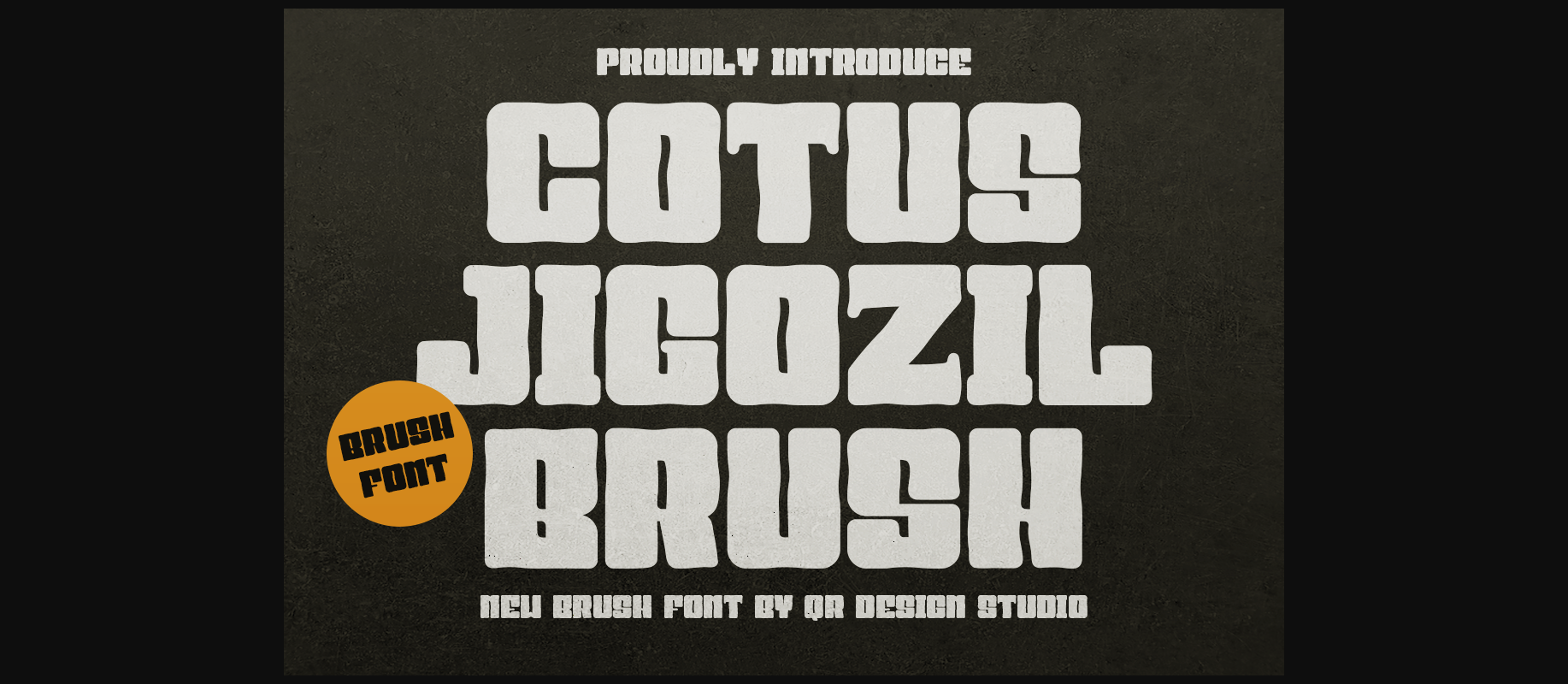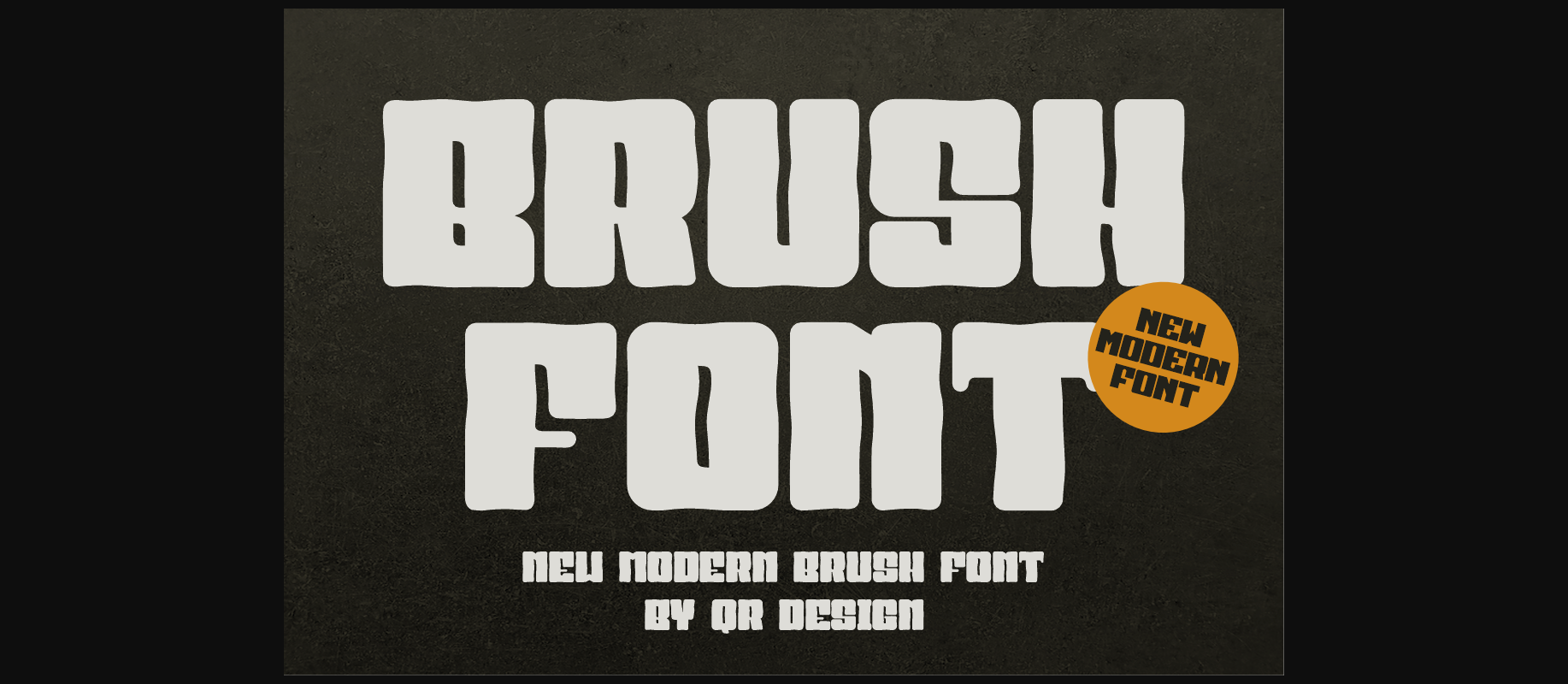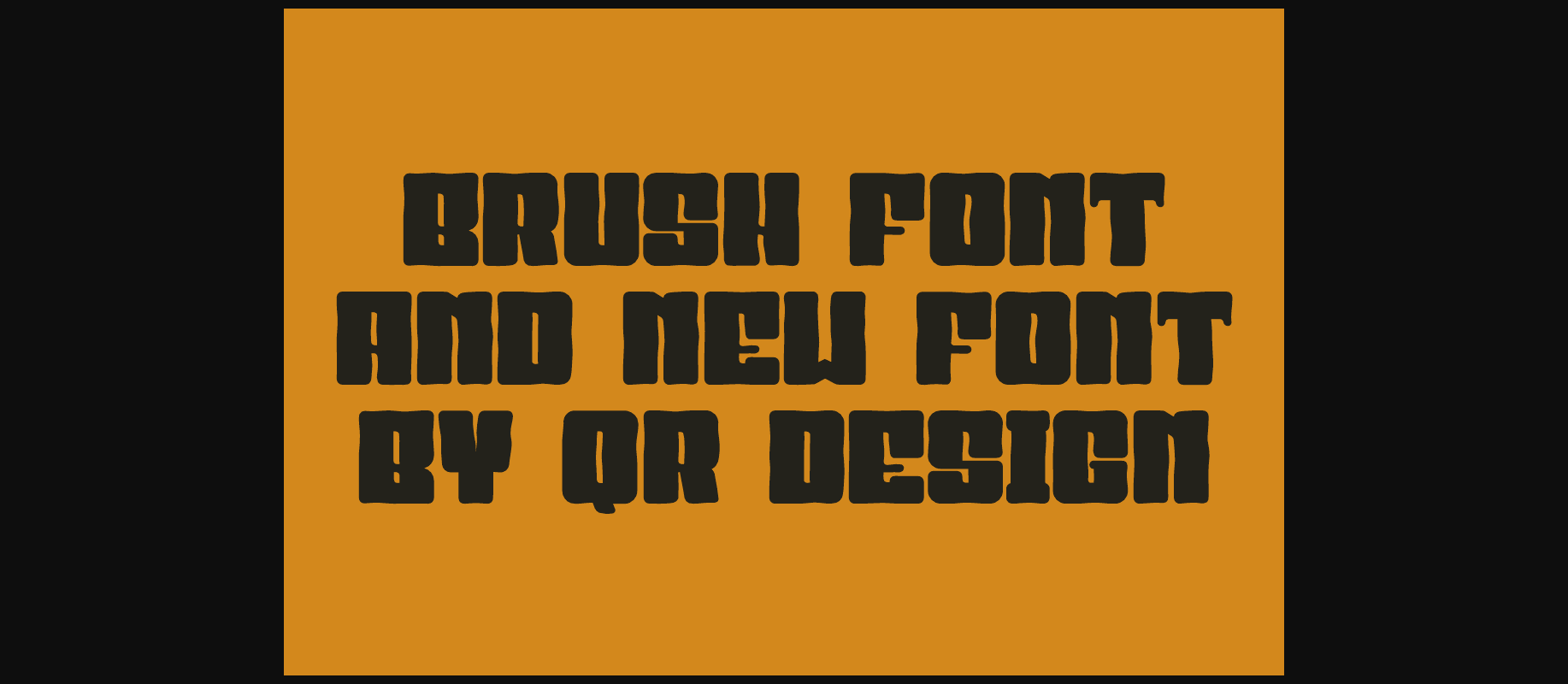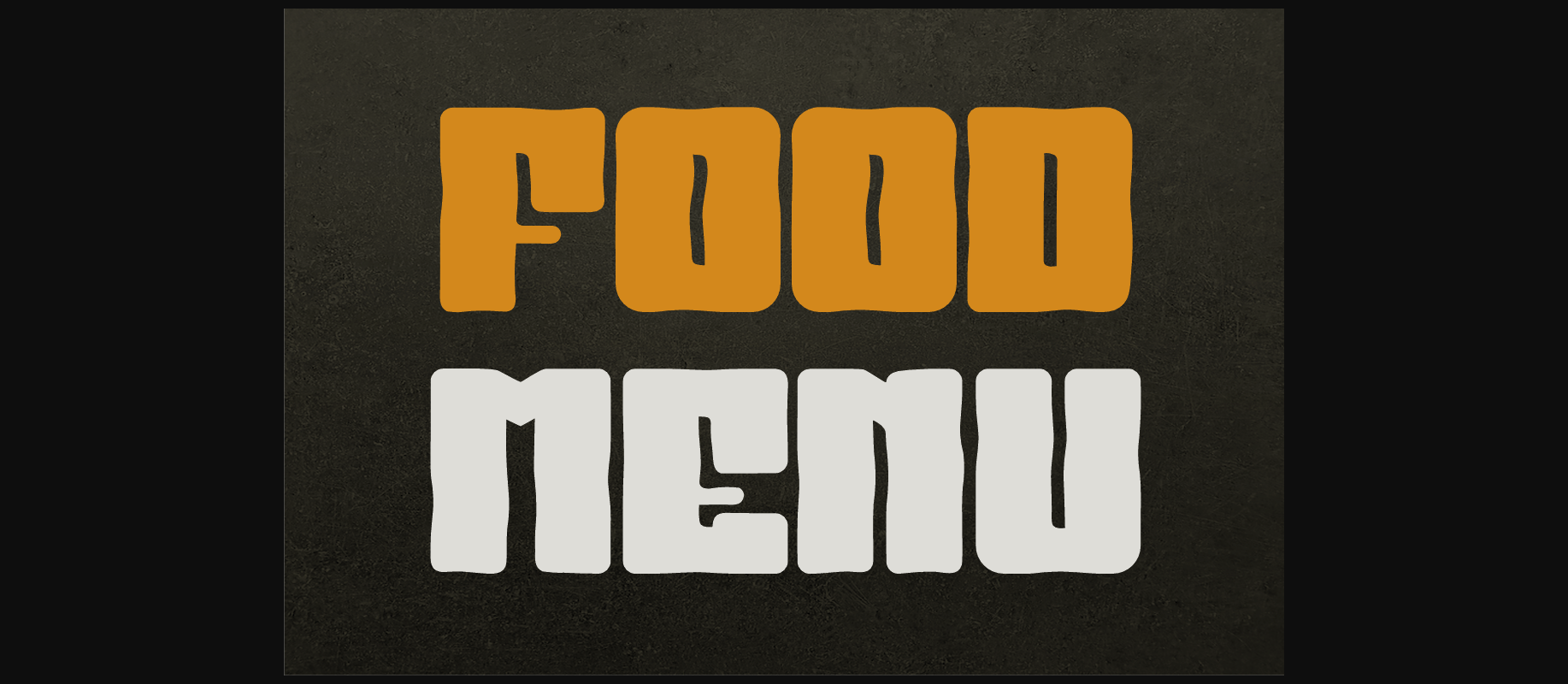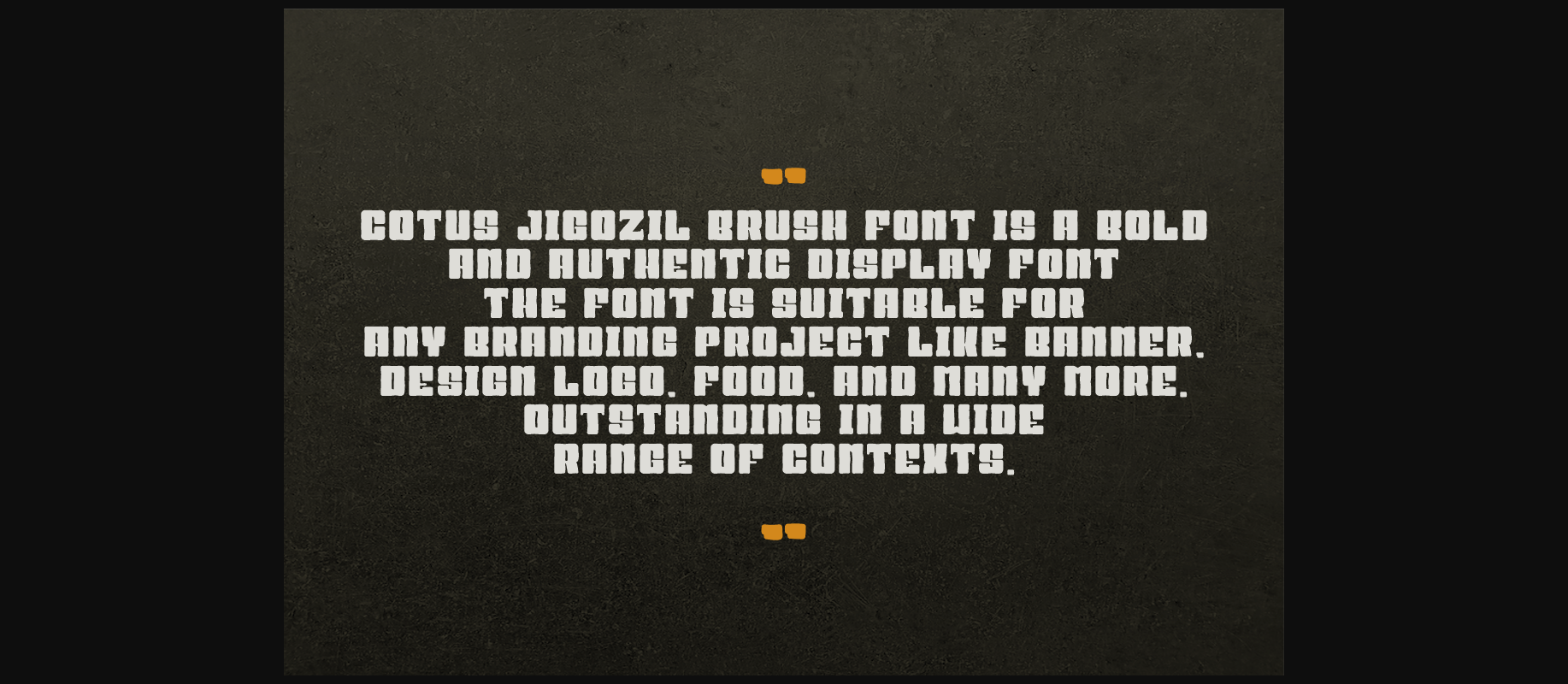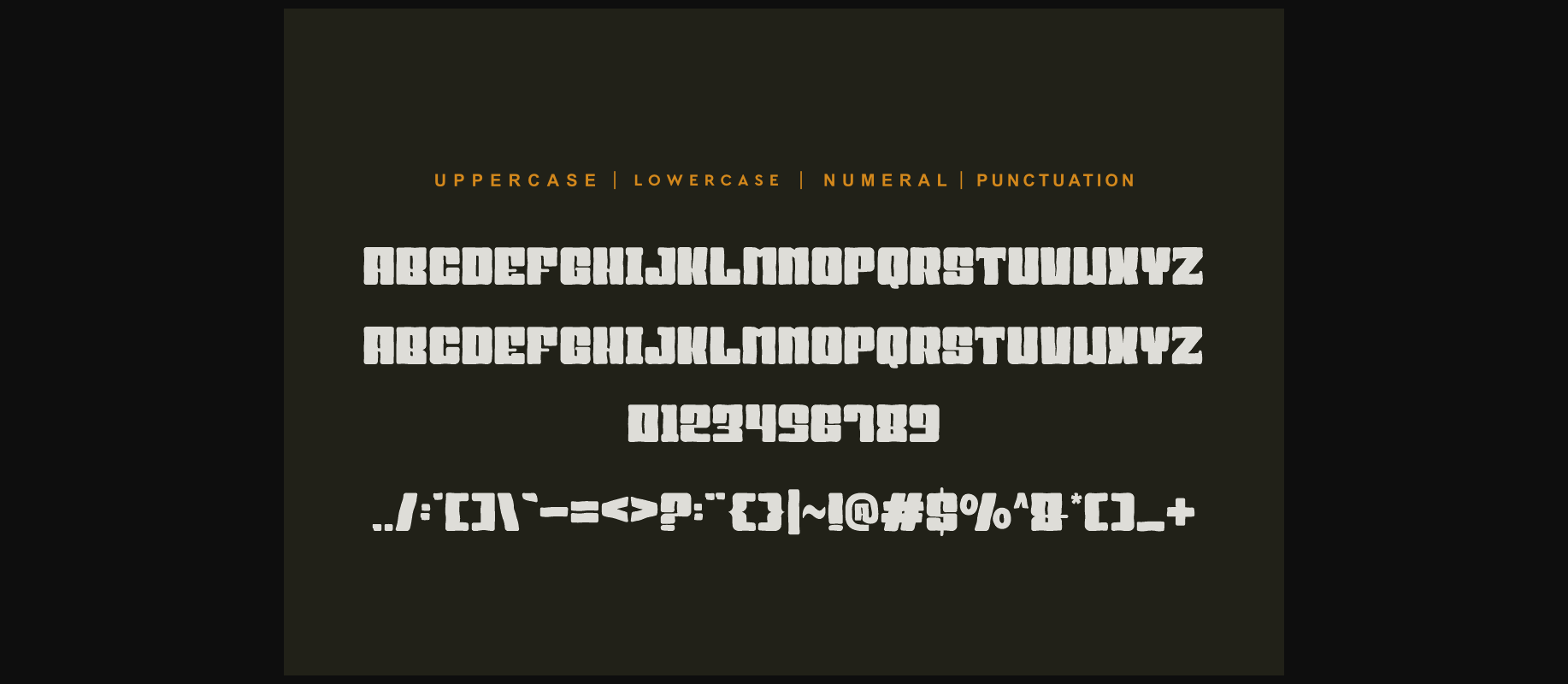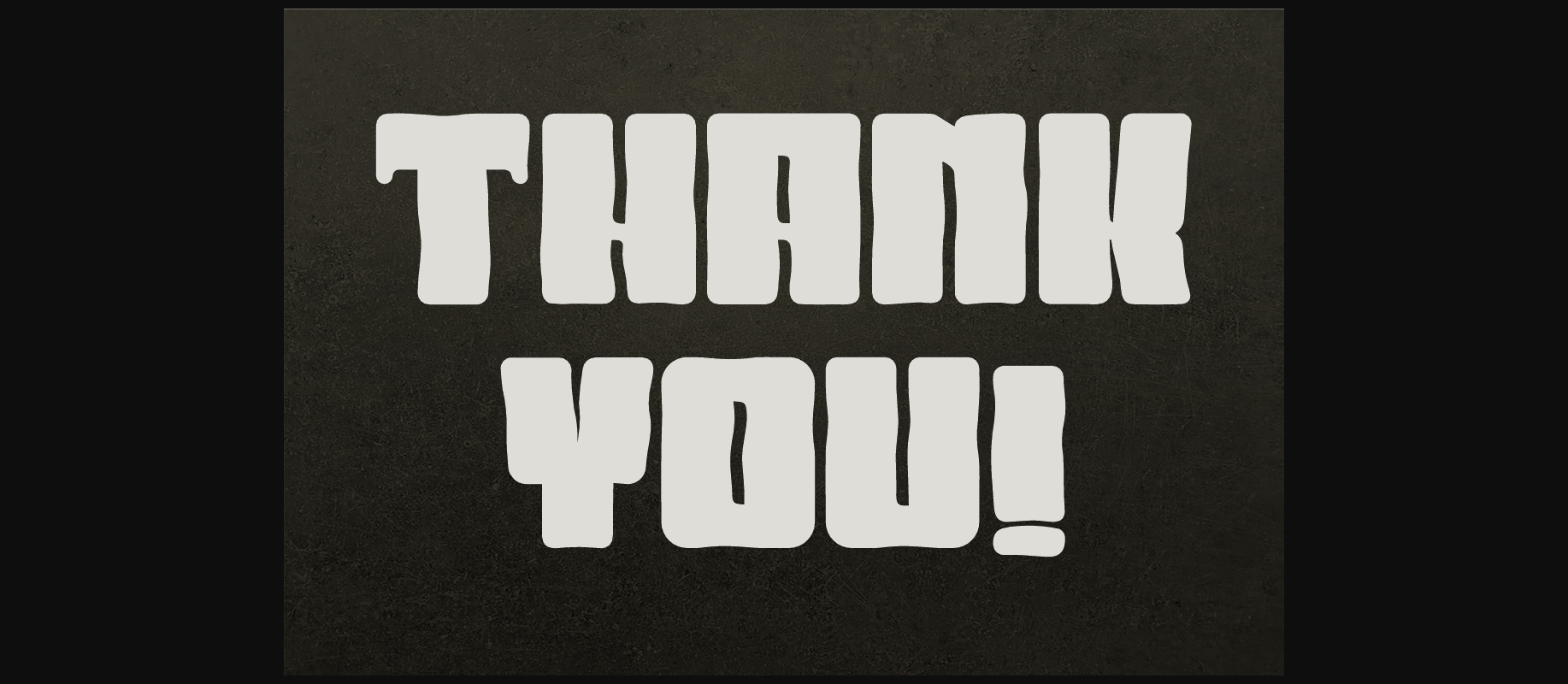
About Cotus Jigozil Brush Font
Cotus Jigozil Brush Font is a bold and authentic display font.
The font is suitable for any branding project like logo, t-shirt printing, food, and many more.